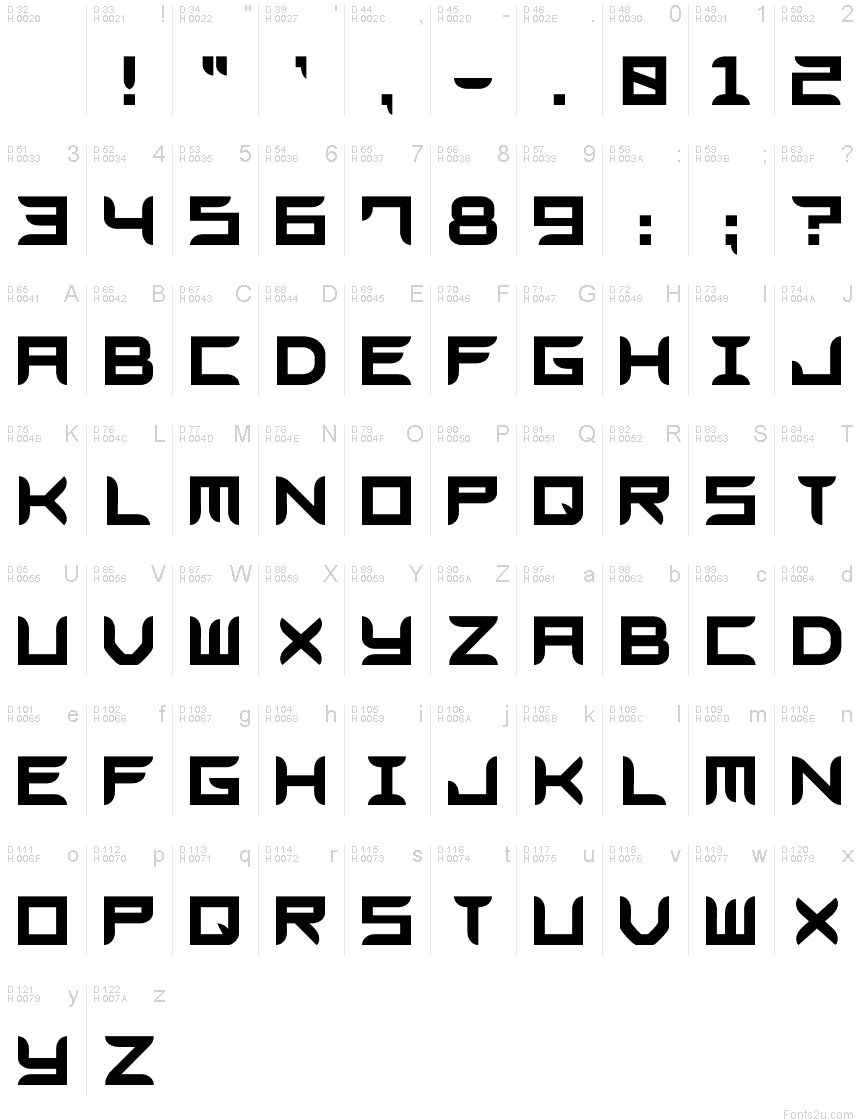
Blades GF Free
Blades GF Free font by is a free futuristic display typeface with a hard-edged, machined feel. Thick verticals, squared curves, and those distinctive “clipped” corners make each letter look like it was cut from steel and polished for speed. The rhythm is tight and forceful, so words lock together like panels on a sci‑fi starship hull.
This free font shines on game logos, esports teams, tech conference posters, energy drink cans, sci‑fi book covers, and bold UI headers. Using Blades GF Free in all caps with a bit of extra tracking gives it a sleek, aerodynamic vibe; pair it with a clean geometric sans for smaller text to keep the spotlight on those sharp, industrial forms.